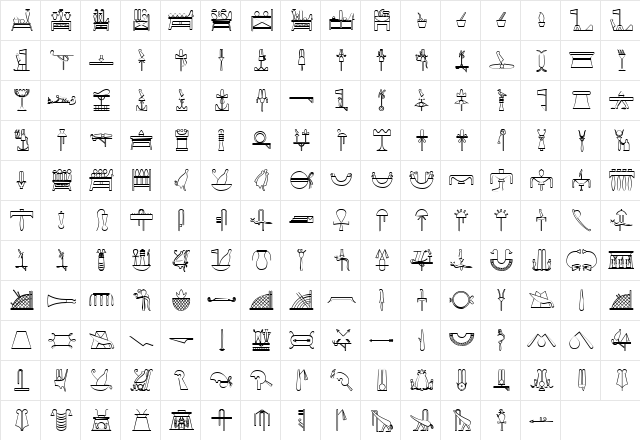
GlyphExtLibAA Medium
Design Context for GlyphExtLibAA Typeface
GlyphExtLibAA takes a measured approach to typography — its balanced proportions and neutral character make it a reliable workhorse for both digital and print work.
Pro Tip: Use GlyphExtLibAA in both headline and body roles to test its range before committing to a single application.